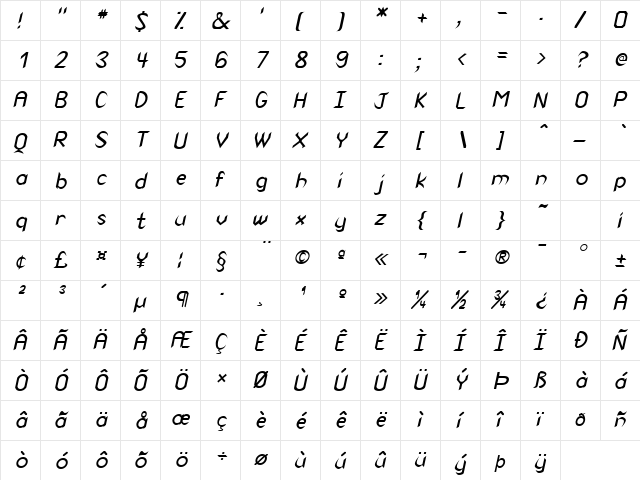
Spike Italic
Design Context for Spike Typeface
Spike is a composed and adaptable typeface that performs quietly and consistently across a wide range of design contexts. The slanted form adds forward momentum and visual energy.
Pro Tip: Use Spike for emphasis, pull quotes, and subheadings where its slanted energy can add rhythm to the layout.